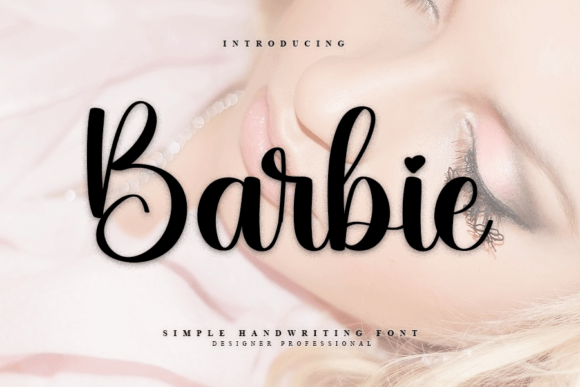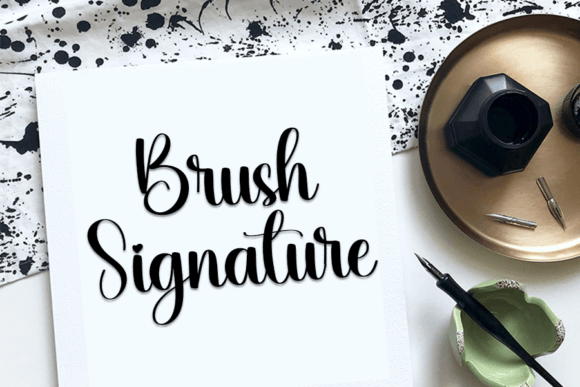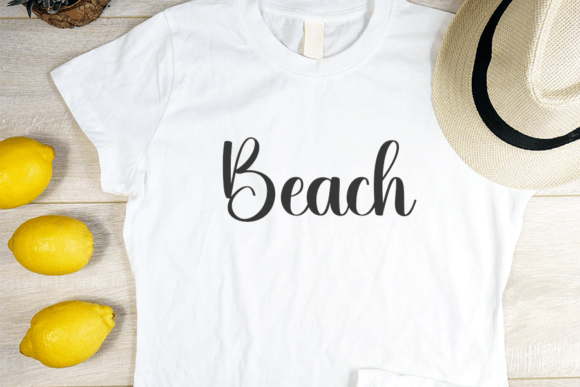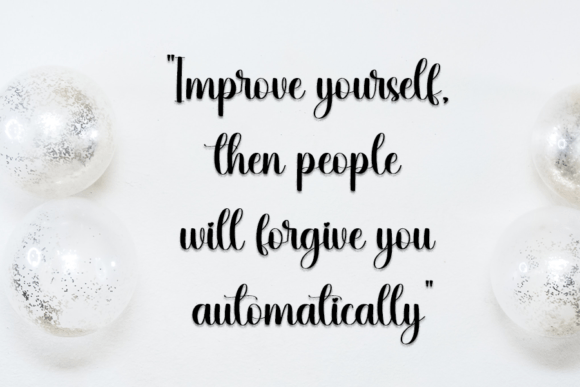
About the Barbie Font
Experience the unique personality of Barbie Font, a font designed for impact. Barbie is a delicate handwritten font carefully crafted for a cool and unique design. This font can be used to write letters, invitations, food products, titles and more.
Barbie Font Usage Examples